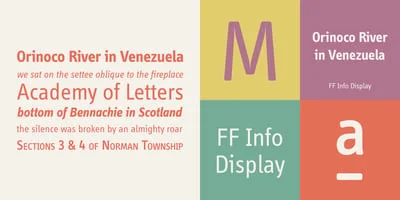
FF Info Display Font
FF Info Display Font is ideal for transportation systems, airport signage, wayfinding projects, information kiosks, public display screens, emergency notifications, digital billboards, and large-scale environmental graphics requiring maximum visibility and clarity.
What makes FF Info Display Font exciting is its exceptional legibility optimization designed specifically for challenging viewing conditions and long-distance reading applications. This precision-engineered typeface features robust letterforms with enhanced character recognition that maintain crystal-clear readability across various lighting conditions, viewing angles, and display technologies, making it perfect for critical information delivery in public spaces and emergency situations.
The FF Info Display Font family includes multiple weights and widths, plus specialized character sets and pictogram support that provide comprehensive solutions for complex wayfinding systems and multilingual information display applications requiring international accessibility standards.
This specialized typeface delivers outstanding visibility performance and information clarity, making FF Info Display Font an essential tool for public infrastructure and information design projects. The font's high-visibility character makes it perfect for organizations responsible for public safety and navigation in their communication systems. Transportation authorities and facility managers particularly value its ability to ensure clear information delivery under challenging environmental conditions. The scientifically optimized letterforms guarantee maximum legibility across all applications from intimate directional signs to massive airport departure boards. Whether you're developing wayfinding systems for major transit hubs or creating emergency notification displays, this font provides the perfect combination of visibility optimization and professional reliability. Creative professionals consistently choose this typeface for projects requiring that ideal balance of information clarity and public safety standards, making it invaluable for critical communications that must perform flawlessly in high-stress environments where clear information delivery can be literally life-saving.